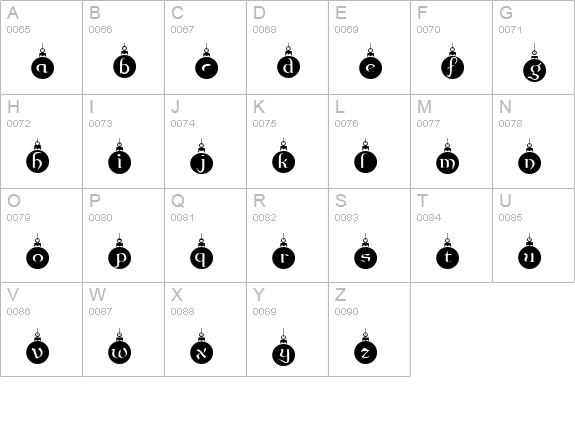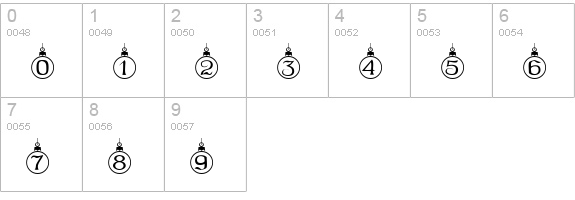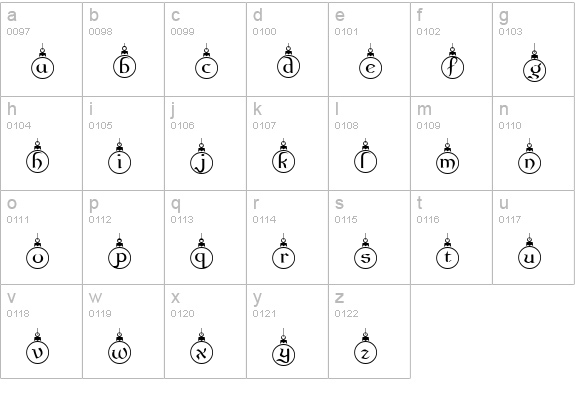
SeasonsGreetings Font Details
Introducing SeasonsGreetings, the perfect font to add a touch of warmth and cheer to your designs. With its elegant and whimsical style, this font captures the essence of the holiday season, making it perfect for greeting cards, invitations, and any festive project. Featuring beautifully crafted letterforms, SeasonsGreetings is a versatile font that can be used for both headlines and body text. Its smooth curves and gentle strokes create a harmonious and inviting feel, while its carefully designed characters ensure excellent readability. One of the best things about SeasonsGreetings is that it is absolutely free. Yes, you read that right! Now you can spread the joy without worrying about any additional costs. This font is freely available to download at FontsMarket.com, a trusted source for high-quality fonts. Whether you're designing holiday-themed graphics, creating personalized gifts, or simply adding a touch of seasonal charm to your projects, SeasonsGreetings is the font that will make your designs stand out. Its delightful and festive appearance will instantly evoke feelings of joy and celebration. So why wait? Download SeasonsGreetings today and let your creativity shine. With its free availability at FontsMarket.com, you have the opportunity to bring a touch of holiday magic to your designs without any financial burden. Spread the SeasonsGreetings and make this holiday season even more special with this exquisite font.